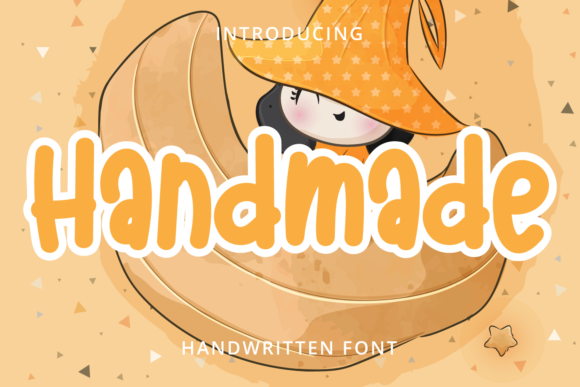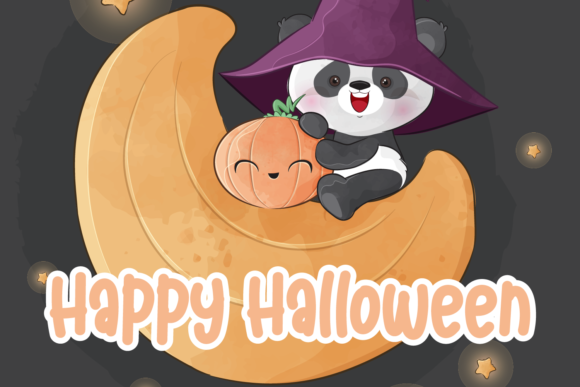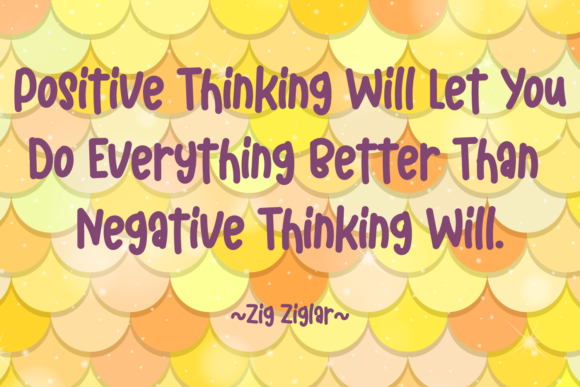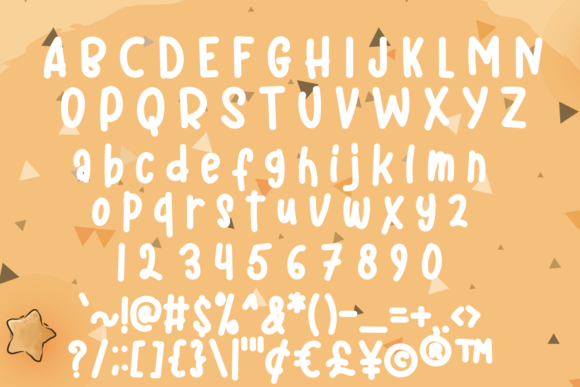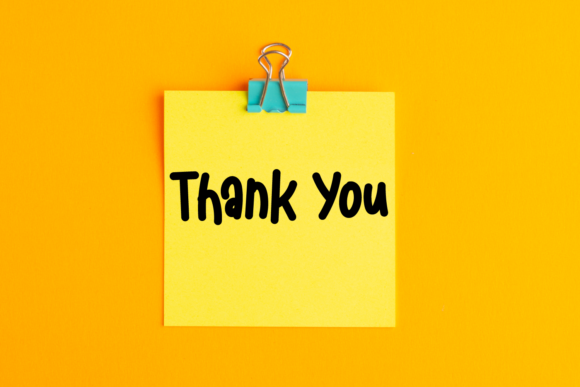
“Handmade” is described as a relaxed and fun handwritten font, suggesting a laid-back and enjoyable aesthetic. The font is positioned as a valuable asset to font libraries, with the potential to enhance various creations, regardless of the topic.
The terms “relaxed” and “fun” imply that “Handmade” carries an informal and enjoyable quality. Handwritten fonts with a relaxed style often add a personal and authentic touch to text, making them suitable for a range of creative projects where a casual and friendly atmosphere is desired.
The statement about being a wonderful asset to font libraries suggests that “Handmade” is versatile and can be a useful addition to a designer’s toolkit. This versatility is valuable for designers looking for fonts that can adapt to different topics and design contexts.
The mention of enhancing any creation emphasizes the font’s potential to improve the visual impact of designs. Whether applied to logos, headings, posters, or other creative projects, “Handmade” is presented as a font that has the ability to elevate the overall aesthetic.
In summary, “Handmade” is positioned as a versatile and enjoyable handwritten font with a relaxed and fun style. Its potential to enhance various creations makes it a font that designers may find valuable for a wide range of projects, contributing to a casual and authentic visual appeal.